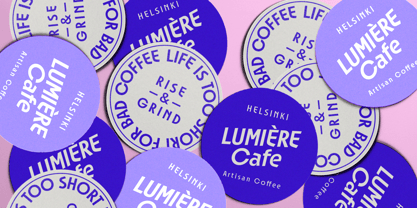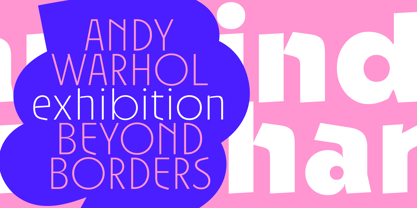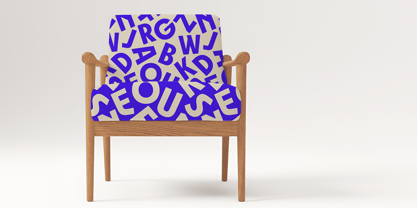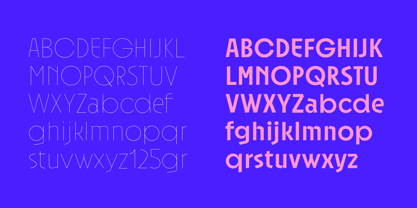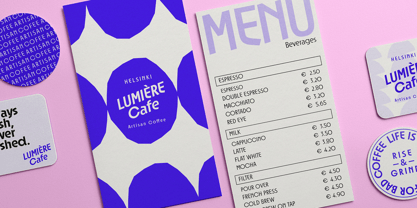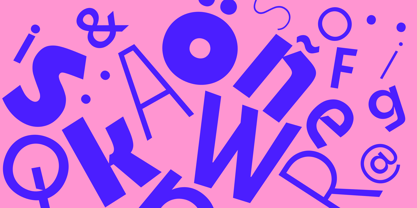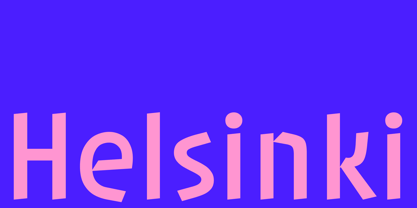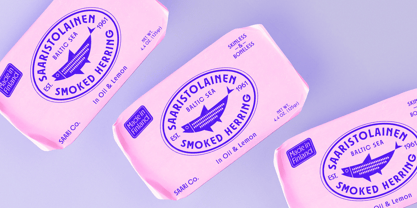
Onni
by Resistenza
The Onni Font Family was designed by Giuseppe Salerno, Paco González and published by Resistenza. Onni contains 10 styles and family package options.
Onni is a contemporary geometric sans serif designed in Helsinki that balances precision with playful disruption. Built on a foundation of perfect circles and sharp angles, it explores the space where Swiss modernism meets experimental typography. It comes in 9 weights, from hairline thin to bold, each designed to work independently or in dynamic combinations. The typeface features quirky, playful proportions with a distinctive mix of straight-edged rectangles and curved forms that create striking visual contrast. Characters sit at slightly different angles along an inconsistent baseline, giving the typeface a hand-placed, imperfect feel that adds to its contemporary charm. The lowercase "e" features a unique triangular cutout, while the swooping R tail and geometrically constructed numerals add distinctive personality. Designed with comprehensive OpenType features including extended language support, ligatures, stylistic alternates, tabular figures, and a full range of currency symbols and punctuation. This experimental display font combines strict geometry with playful rotation—friendly yet bold, modern yet slightly chaotic. Perfectly suited for youth-oriented branding, tech startups, creative studio identities, editorial design, packaging, and any display use where personality matters more than traditional legibility. Onni delivers geometry with attitude—a typeface that refuses to be ignored.